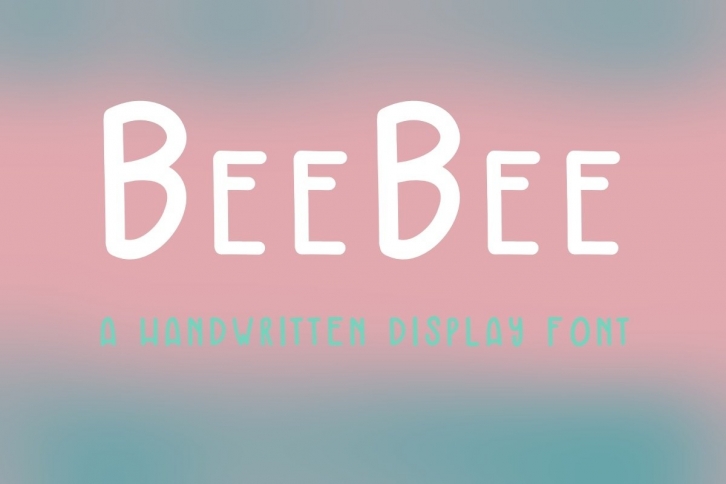
BeeBee Handwritten Display is a trendy and unique font with an authentic style. It was designed by GracieGray and it's a great choice for creative people who need such a font. It was released on October 17, 2021 and the file size is 11.27 MB. BeeBee Handwritten Display will add an organic vibe to any design idea!